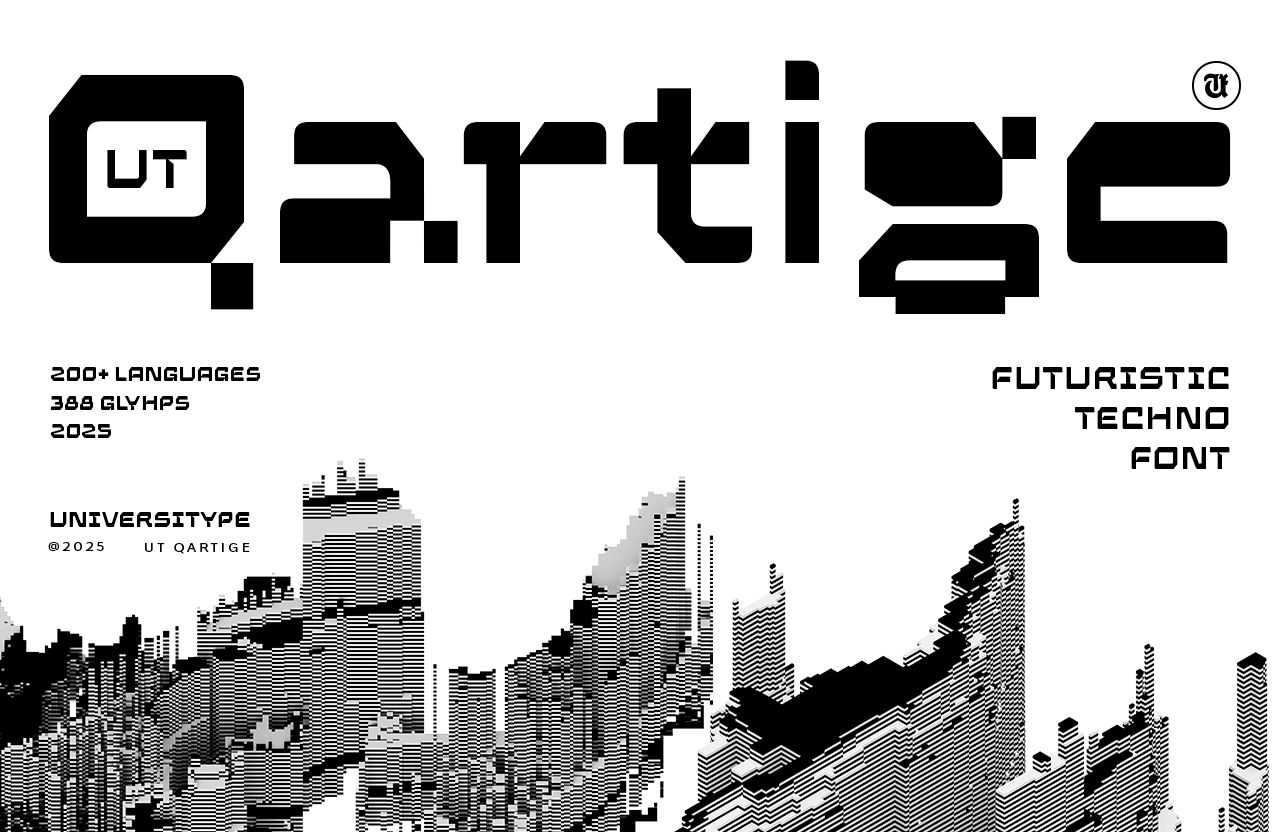
UT Qartige - A Techno-futuristic Typeface
UT Qartige is a techno-futuristic typeface born from the fusion of machine precision and digital rebellion. With its angular cuts and micro-line illusions.